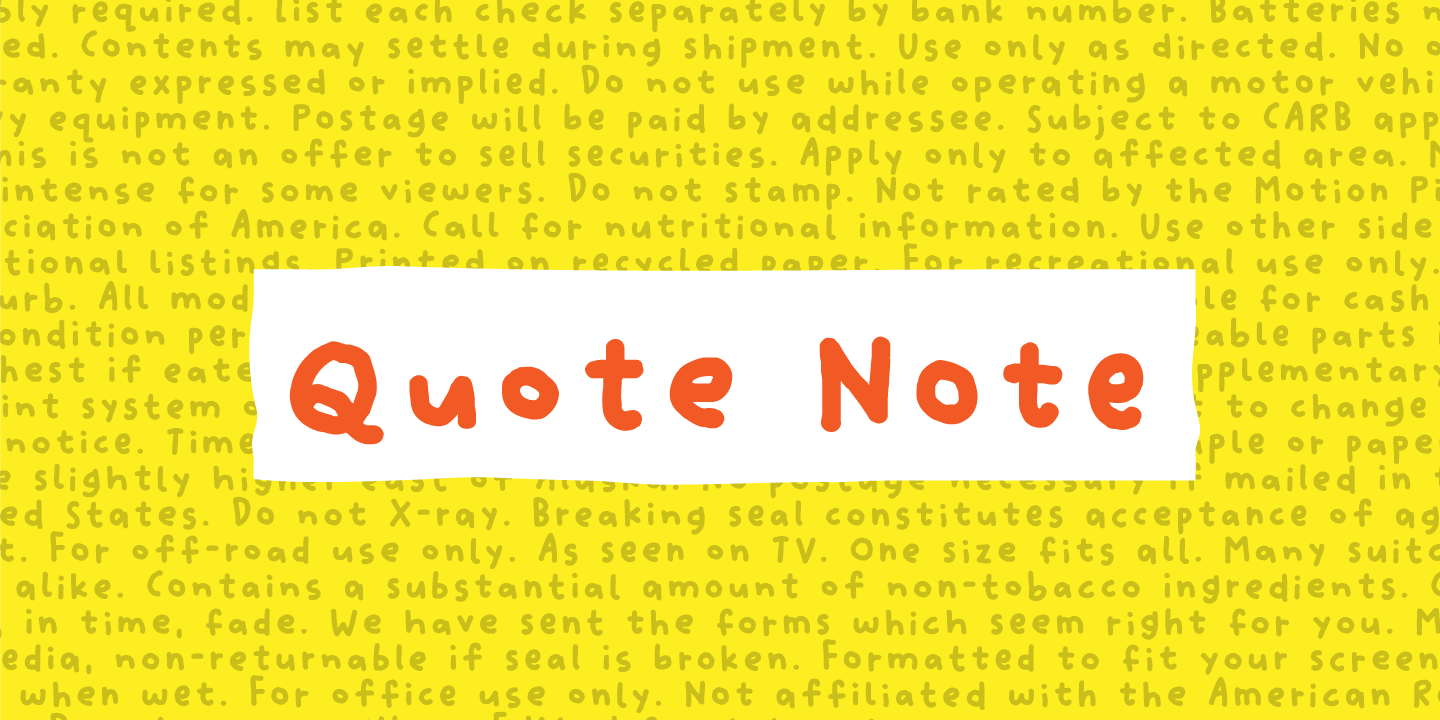
The Quote Note Font is perfect for inspirational quote designs, handwritten note aesthetics, personal journal layouts, motivational social media graphics, testimonial presentations, educational materials, sticky note designs, and thoughtful reminder communications. This versatile typeface excels in motivational brands, educational publishers, social media creators, personal development coaches, and any organization seeking to communicate personal reflection, inspiration, and the intimate charm of handwritten notes in their visual communications.
What makes Quote Note Font so exciting is its authentic, personal character that perfectly captures the essence of handwritten notes and meaningful quotes while maintaining exceptional readability and contemporary functionality. The font features natural letterforms with slight irregularities, note-like proportions, and distinctive details that evoke the warmth of personal handwriting and thoughtful reflection. Its intimate design philosophy makes it ideal for brands that want to communicate authenticity, personal connection, and the kind of genuine human touch that makes messages feel heartfelt and memorable.
The Quote Note Font family includes multiple stylistic variations: Regular, Bold, Light, and Casual versions, each featuring handwritten alternates, note-style decorative elements, and personal flourishes. Additionally, it offers contextual ligatures, quotation marks variations, and handwritten symbols that enhance the font's authentic appeal. The family includes extended character sets with multilingual support and specialized glyphs for educational and inspirational design applications.
When you choose Quote Note Font Free Download, you're selecting a typeface that embodies personal authenticity and handwritten charm while ensuring exceptional functionality across all modern applications. This font seamlessly combines handwritten aesthetics with contemporary design requirements, making it perfect for both digital platforms and print applications. The carefully crafted letterforms maintain perfect legibility while the distinctive personal qualities create memorable brand experiences that resonate with audiences seeking authentic human connection and inspirational messaging.
Whether you're developing personal brand identities, creating motivational marketing materials, designing educational content, or establishing a visual identity that celebrates personal reflection and inspirational communication, this font delivers outstanding warmth and authentic appeal. The Quote Note Font transforms your content into personal communications that feel handwritten and heartfelt, reinforcing your brand's commitment to genuine human connection and meaningful inspiration.